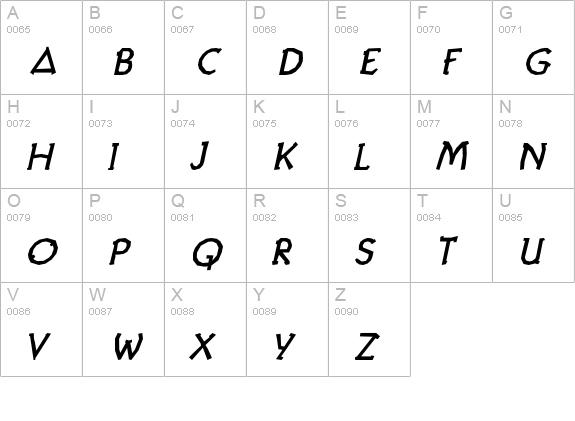
Twig Oblique is a distinctive, italic variant in the Twig typeface family \xE2\x80\x94 well suited to design and typography projects.
Twig Oblique font is a stunning and stylish typeface that captures the essence of elegance and creativity. With its sleek and slender design, this font effortlessly combines modernity with a touch of uniqueness, making it the perfect choice for a wide range of design projects. The Twig Oblique font is meticulously crafted, with each letter carefully designed to create a harmonious and visually appealing composition. Its oblique angle adds a sense of dynamism and movement, making your text come alive with energy and vitality. One of the best aspects of the Twig Oblique font is that it is free for everyone to use. Whether you are a professional designer looking to add a touch of sophistication to your projects or a casual user wanting to enhance your personal creations, this font is readily available for download at FontsMarket.com. Simply visit the website and explore the vast collection of fonts, including Twig Oblique, all of which are freely available for you to use and enjoy. Furthermore, the Twig Oblique font is versatile and adaptable, making it suitable for a wide range of design applications. Whether you are designing logos, posters, packaging, or website headers, this font will provide a stunning and eye-catching result. Its clean and legible letterforms ensure that your message is conveyed clearly and effectively, while its unique style adds a memorable and distinctive touch. In conclusion, the Twig Oblique font is a beautiful and versatile typeface that combines elegance with a touch of modernity. With its free availability at FontsMarket.com, you can easily download and incorporate this font into your design projects, adding a touch of sophistication and creativity. Whether you are a professional designer or a casual user, the Twig Oblique font is sure to elevate your creations to new heights.